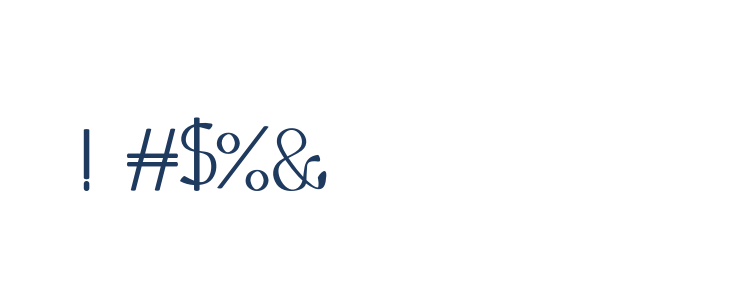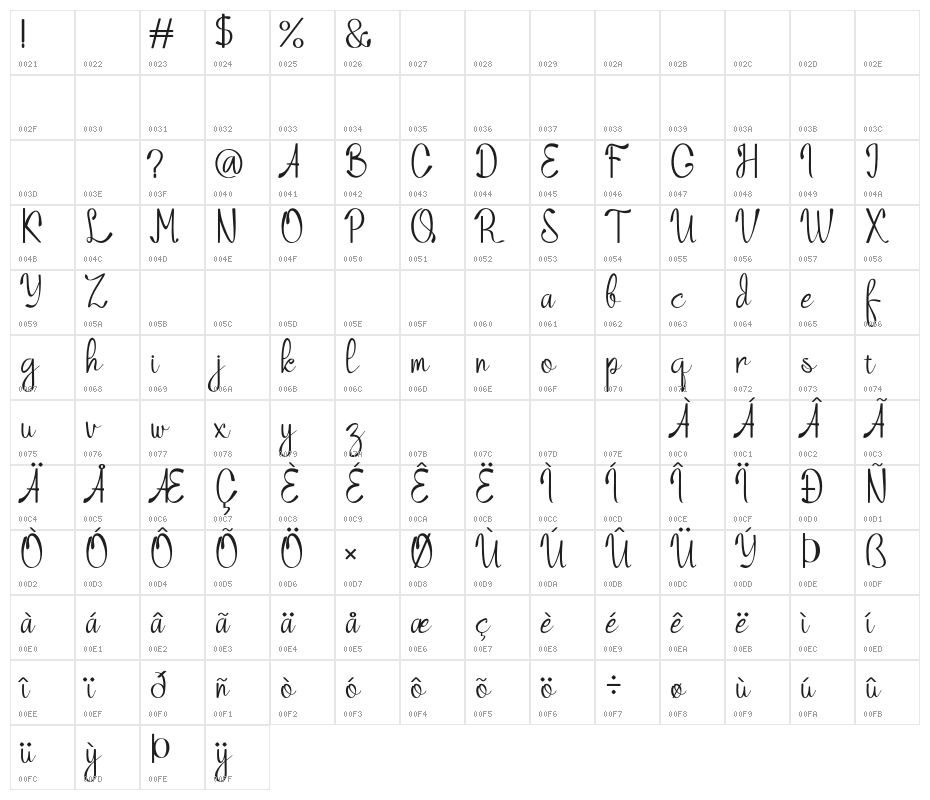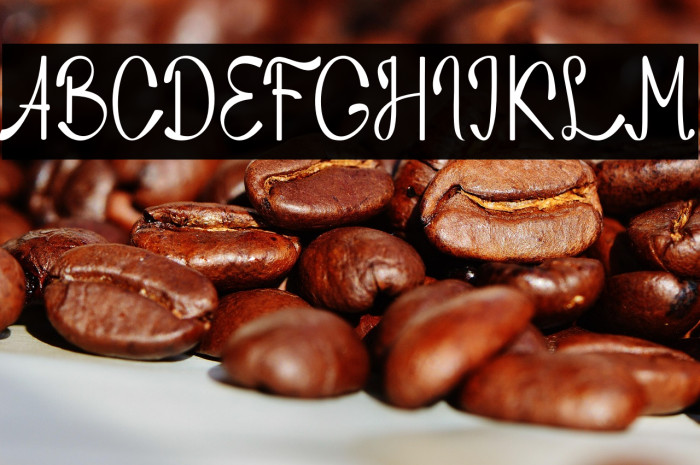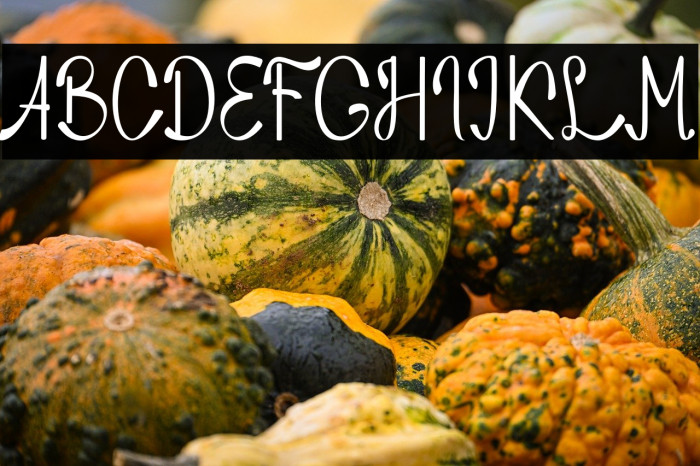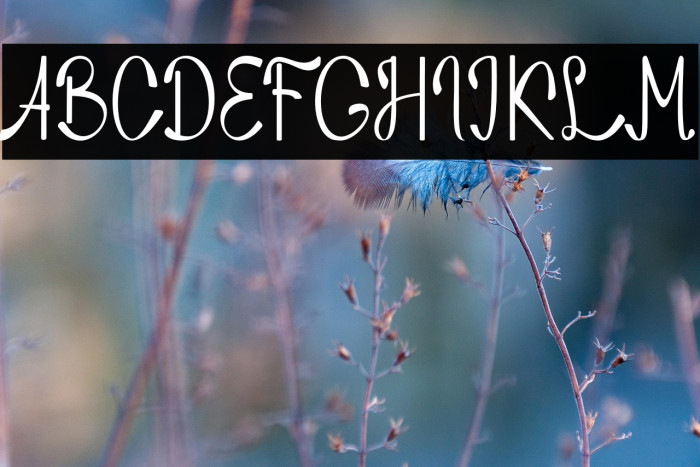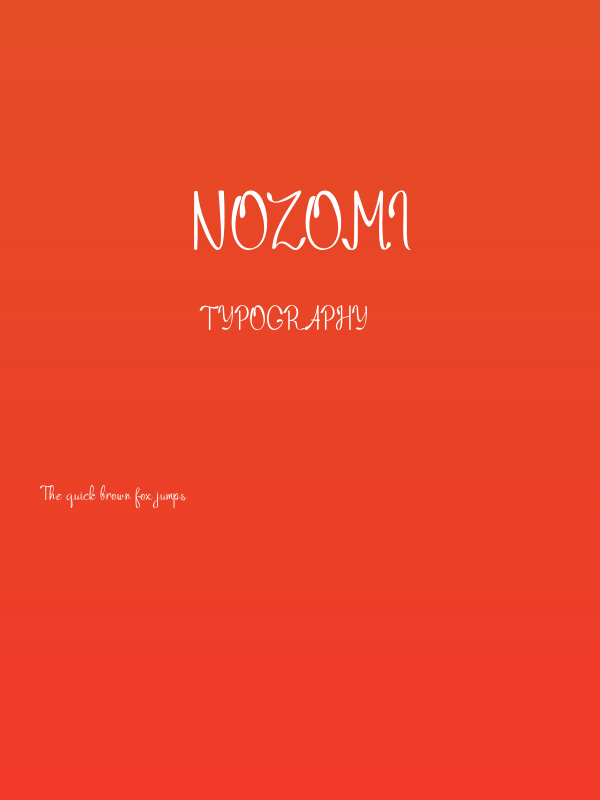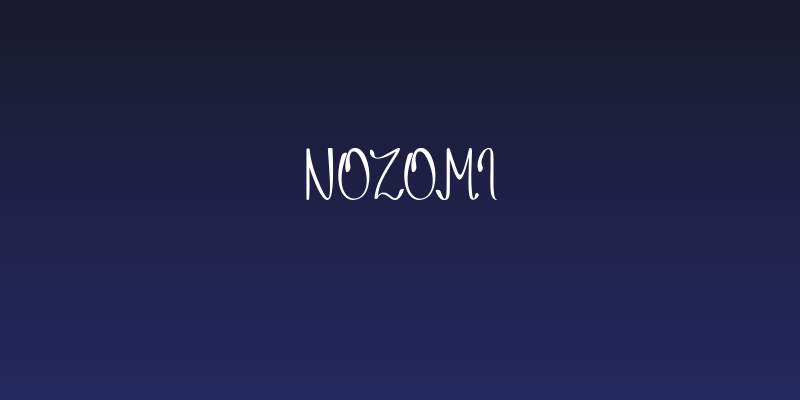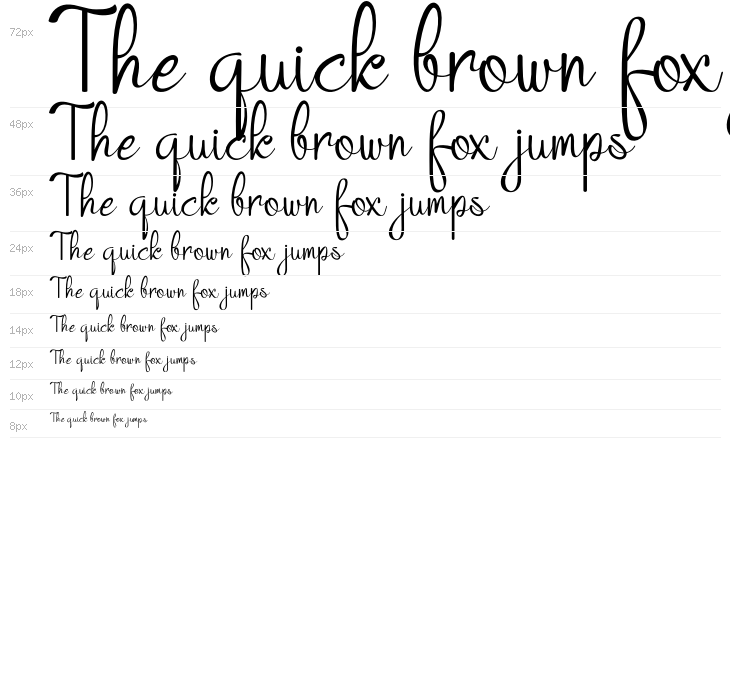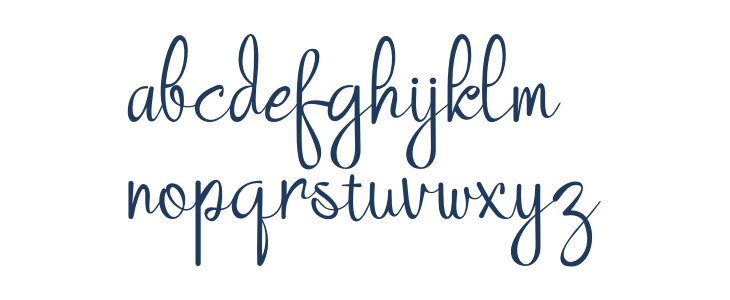
Nozomi Font
Nozomi Description
This font features a playful and elegant script style, characterized by its flowing, cursive letterforms. The uppercase letters are distinct with a mix of loops and curves, giving a whimsical yet sophisticated appearance. The lowercase letters maintain a consistent flow, enhancing readability while retaining an artistic flair. The numerals and special characters complement the overall design, ensuring versatility across various applications. The strokes are moderately thick, providing a balanced contrast that is neither too bold nor too light. This font is ideal for projects that require a touch of elegance and creativity.
| Overall Style | Elegant, Playful |
| Proposed Projects | Ideal for wedding invitations, greeting cards, branding, and creative projects that require a touch of elegance. |